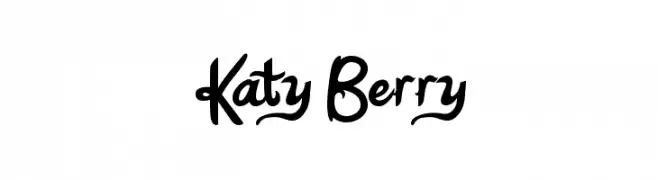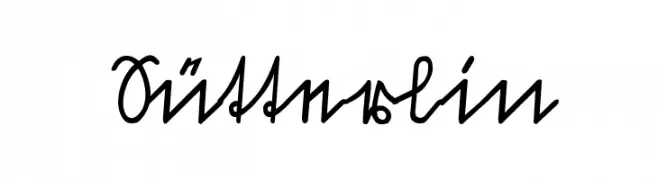
A decorative font with intricate loops and curves, offering a playful and sophisticated look.
A flowing, cursive font with elegant loops and artistic flair.
A playful, handwritten font with dynamic strokes and whimsical loops.
A playful, whimsical cursive script with intricate swirls and loops.
A cursive, decorative font with elegant loops and swirls.
A whimsical and elegant font with looped and curled elements.
A decorative cursive font with elegant loops and playful swirls.
A whimsical and decorative font with intricate curls and loops.
A whimsical, handwritten font with playful swirls and loops.
A whimsical and playful font with curly, looping strokes and decorative flair.
An elegant, cursive font with intricate loops and swirls.
A playful, whimsical font with decorative curls and loops.
A playful and whimsical font with decorative curls and loops.
An elegant, flowing script font with intricate loops and flourishes.
An elegant, whimsical font with flowing, cursive-like strokes and intricate loops.
An artistic and decorative script font with elegant loops and swirls.
An elegant, flowing script font with intricate loops and swirls.
A decorative font with intricate curls and loops, offering a whimsical and artistic style.
A whimsical and decorative font with intricate loops and curls.
A decorative and artistic font with elegant swirls and loops.
An elegant, flowing script font with intricate loops and swirls.
A whimsical, decorative font with playful curls and loops.
A whimsical, artistic font with flowing, interconnected strokes and playful loops.
A whimsical, curly font with playful loops and flourishes.
A playful, whimsical handwritten font with flowing curves and loops.
A playful, looping font with bold, rounded terminals and smooth curves.
An elegant script font with flowing, cursive strokes and intricate loops.
A whimsical, curly font with playful swirls and loops.